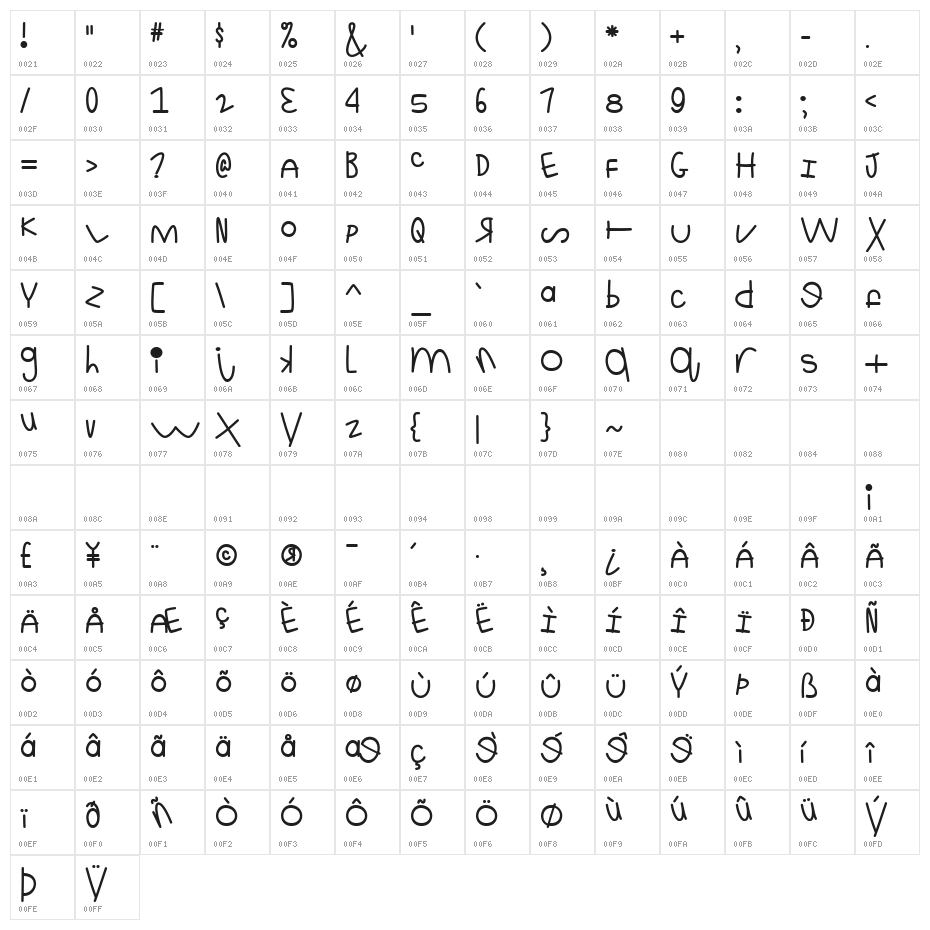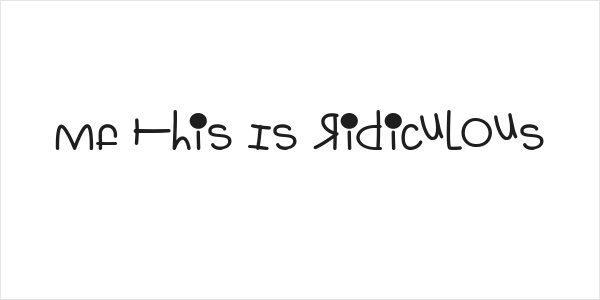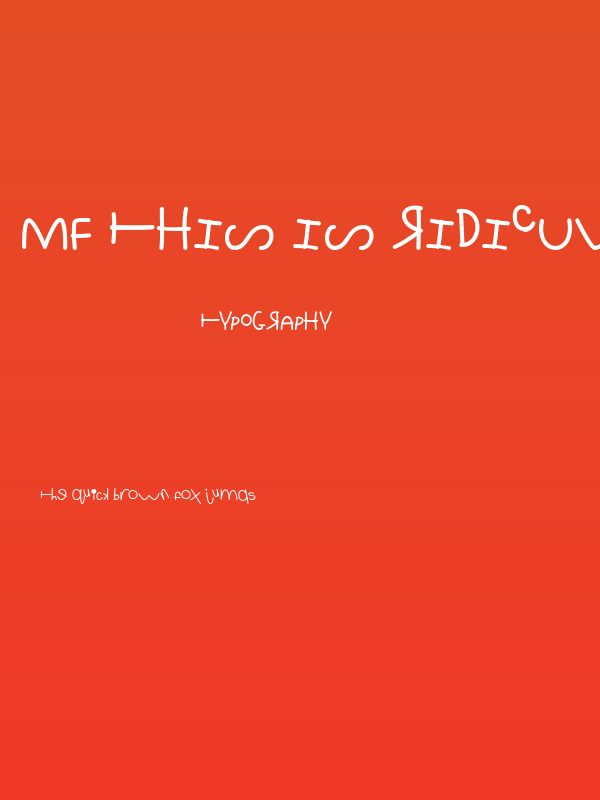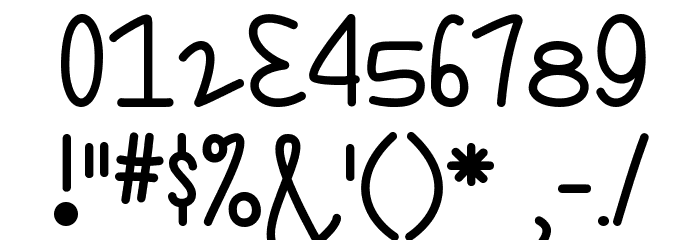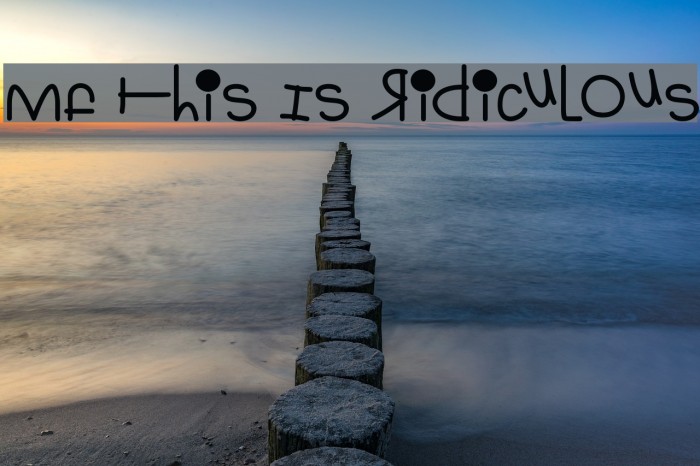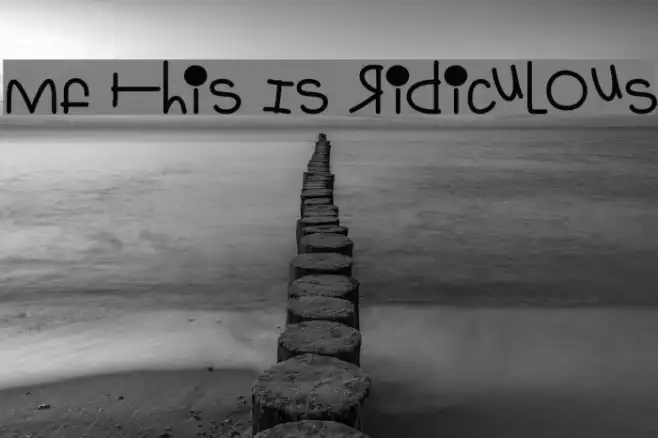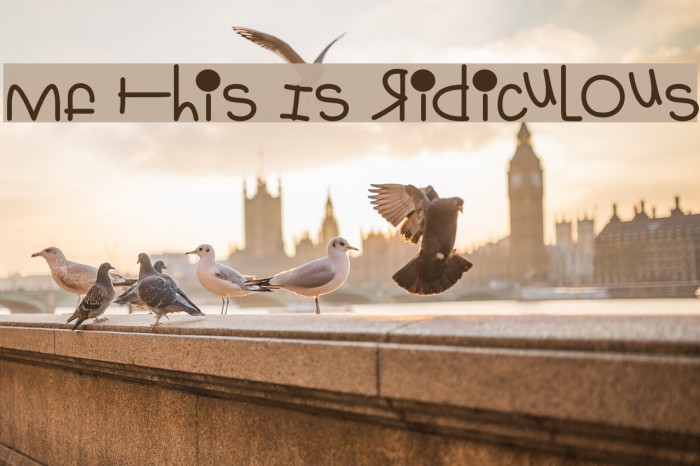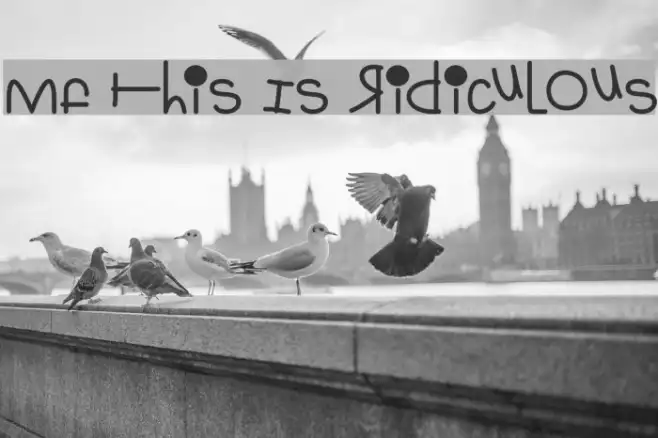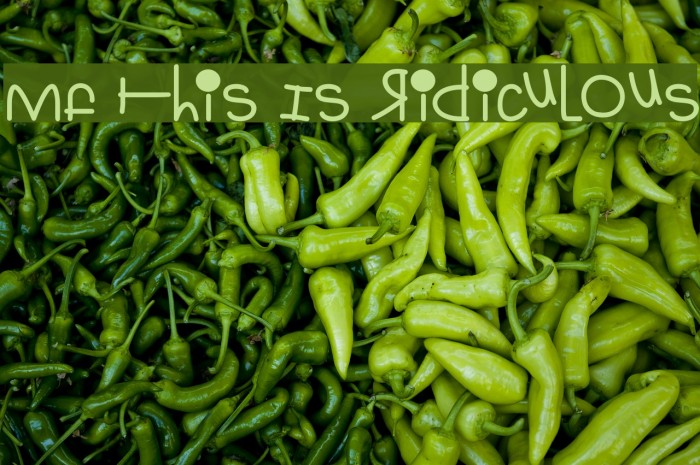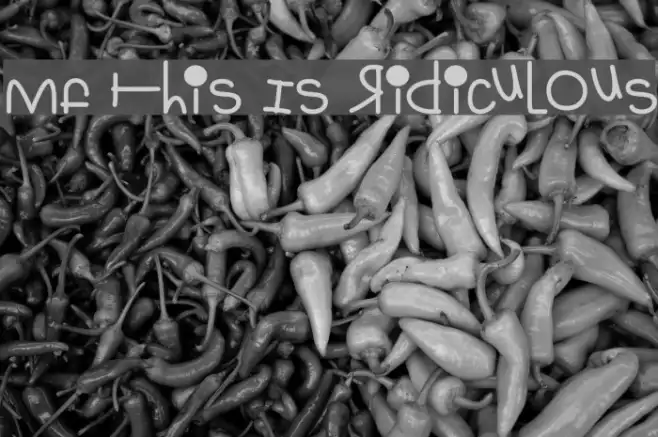
Mf This Is Ridiculous Font
Mf This Is Ridiculous Description
This playful and whimsical font features a unique, hand-drawn style with irregular curves and varying stroke widths. The characters have a casual and informal appearance, with a mix of rounded and angular elements that give it a quirky charm. The uppercase and lowercase letters maintain a consistent style, while the numerals and special characters add to the font's eclectic feel. Its distinctive personality makes it stand out, ideal for creative projects that require a touch of fun and individuality.
| Use Case | Logos, Posters, Creative projects |
| Proposed Projects | Perfect for children's books, playful branding, greeting cards, and creative posters. |